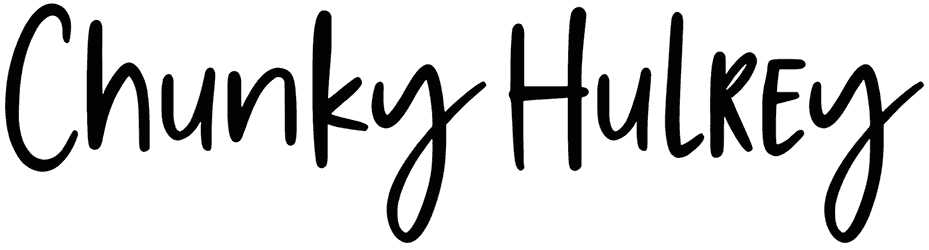
Chunky Hulrey Font
Conveying a warm and sociable feeling in designing can transpire through the treatment of the handwritten font like Chunky Hulrey, its friendly and natural spirit makes it potential to magnify any creative movie titles, TV shows, postcards, invitations, and other fancy suchlike. Rest assured, with a complete alphabet set, put its maximum in bringing out your presentation.